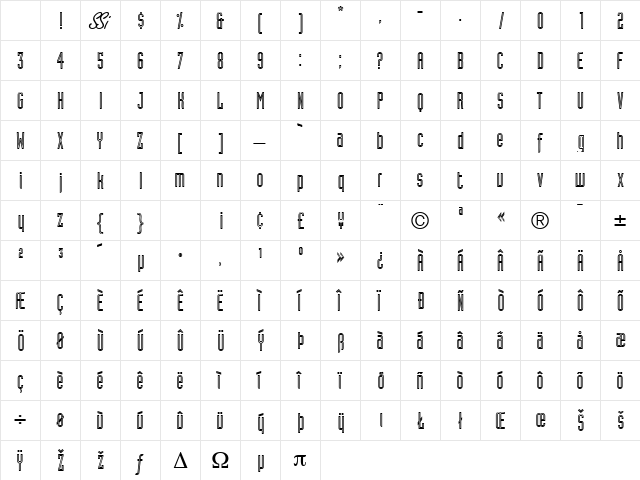
AssemblyOutlineAlternateSSK Regular
Design Context for AssemblyOutlineAlternateSSK
AssemblyOutlineAlternateSSK is built around its visual character rather than neutral utility - its distinctive forms are designed to make an impression at display sizes.
Font Pairing: Pair with a clean neutral sans-serif for body copy to let AssemblyOutlineAlternateSSK's character lead without overwhelming the composition.
Pro Tip: Use AssemblyOutlineAlternateSSK exclusively at display sizes - it was designed to be seen, not read at length. Let a neutral companion handle body copy.